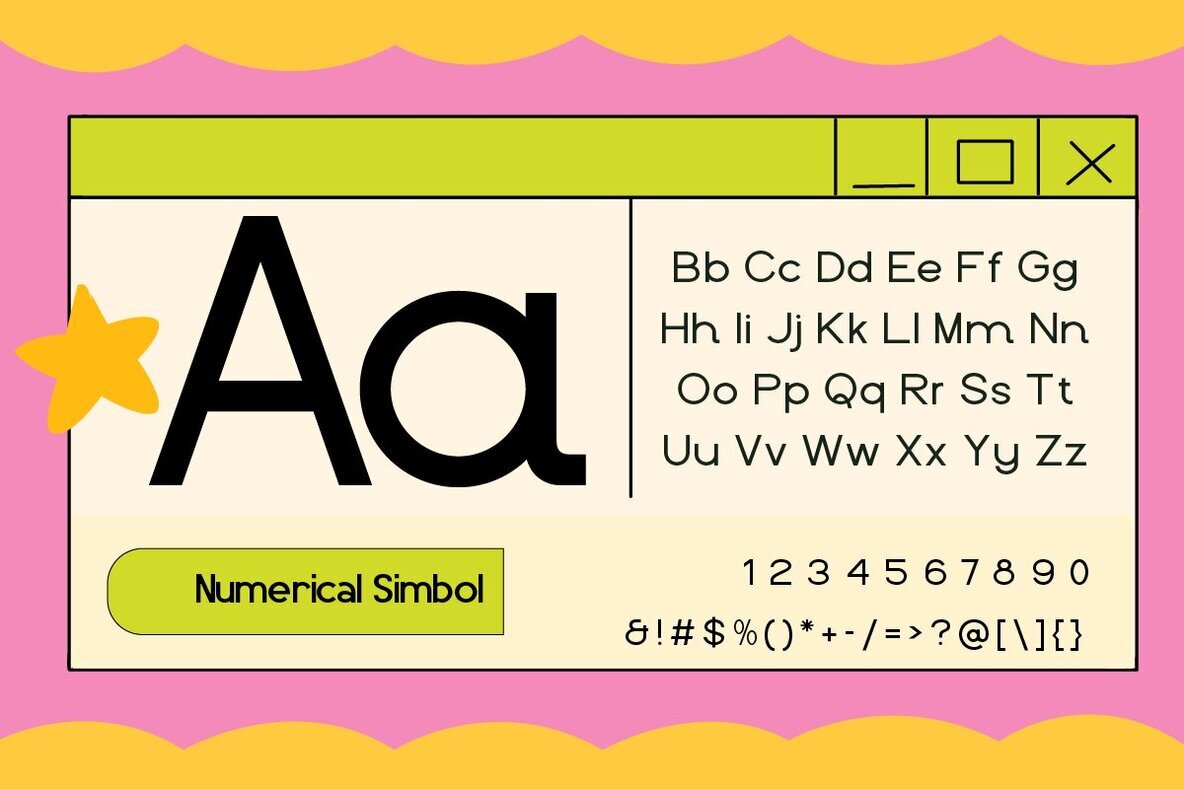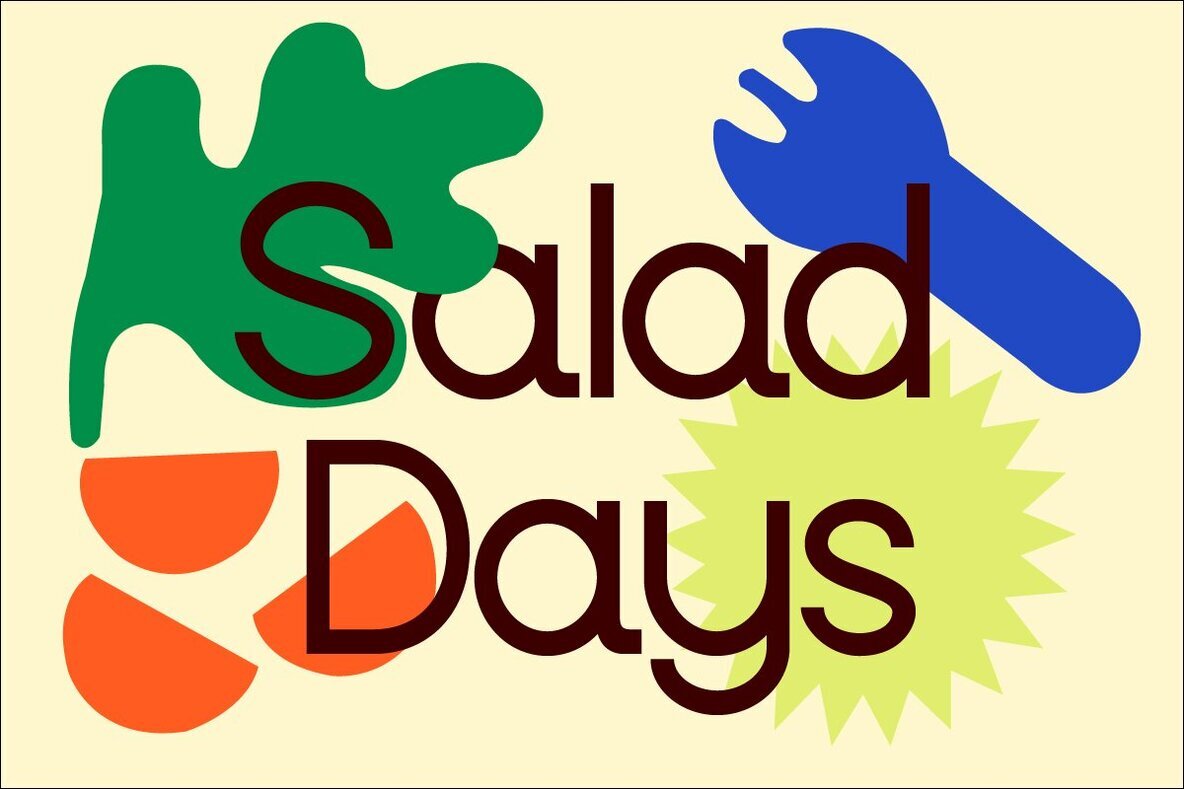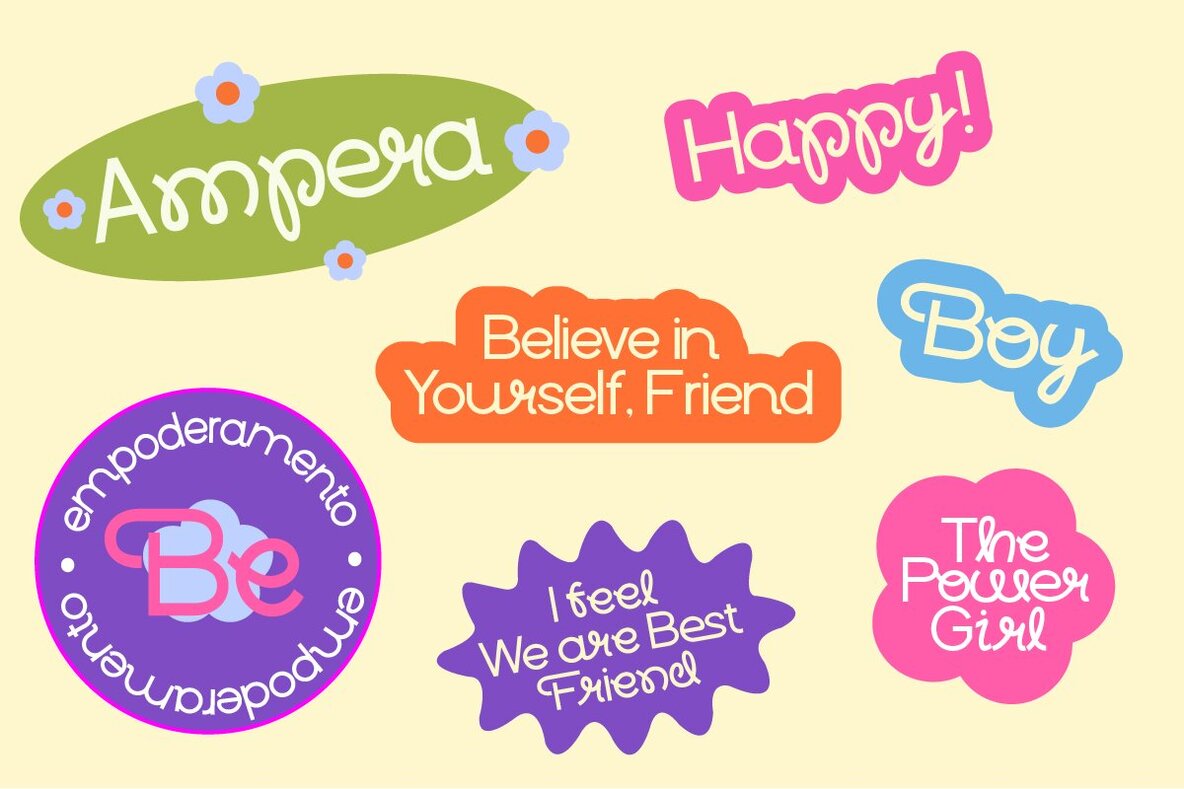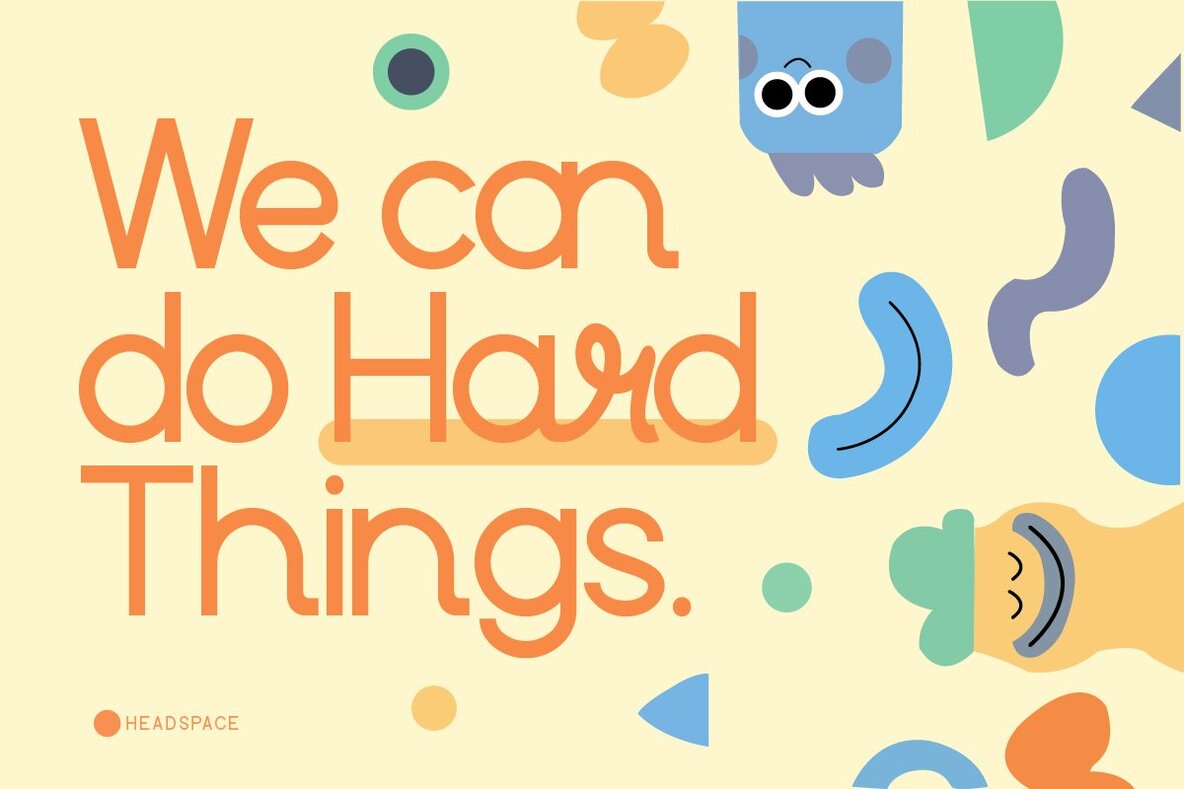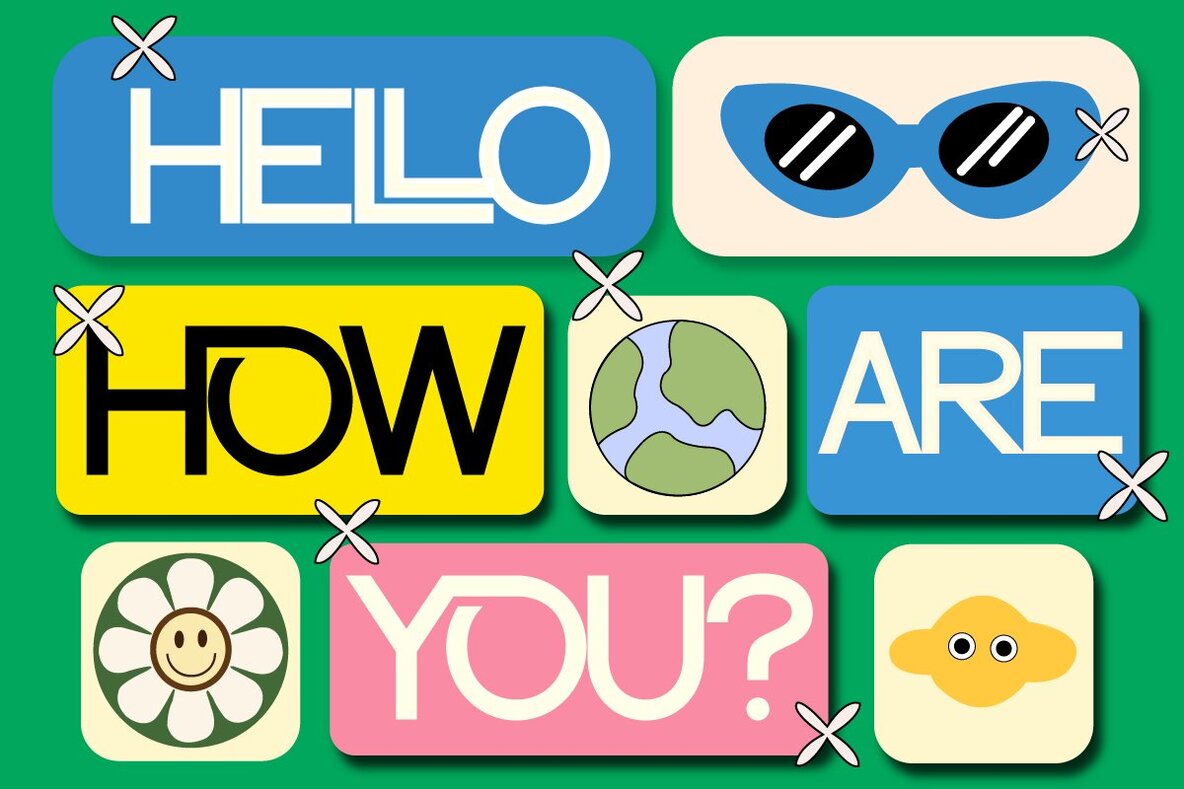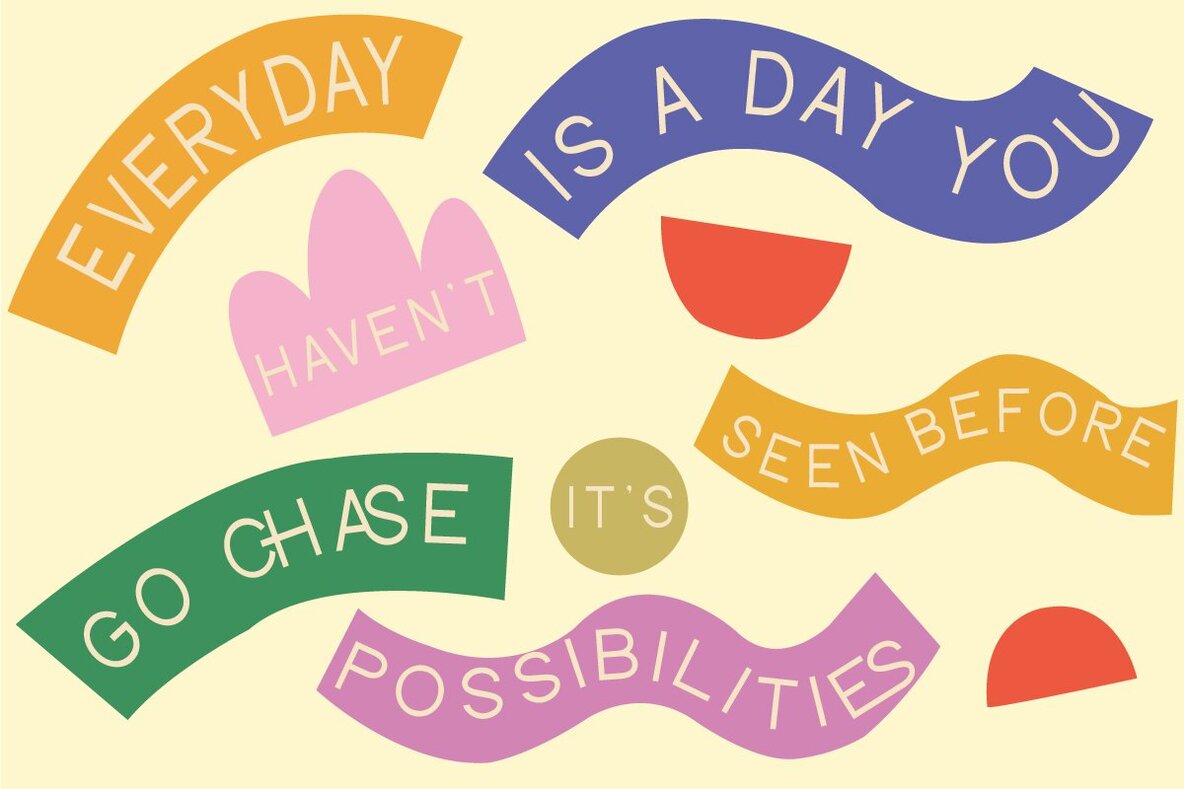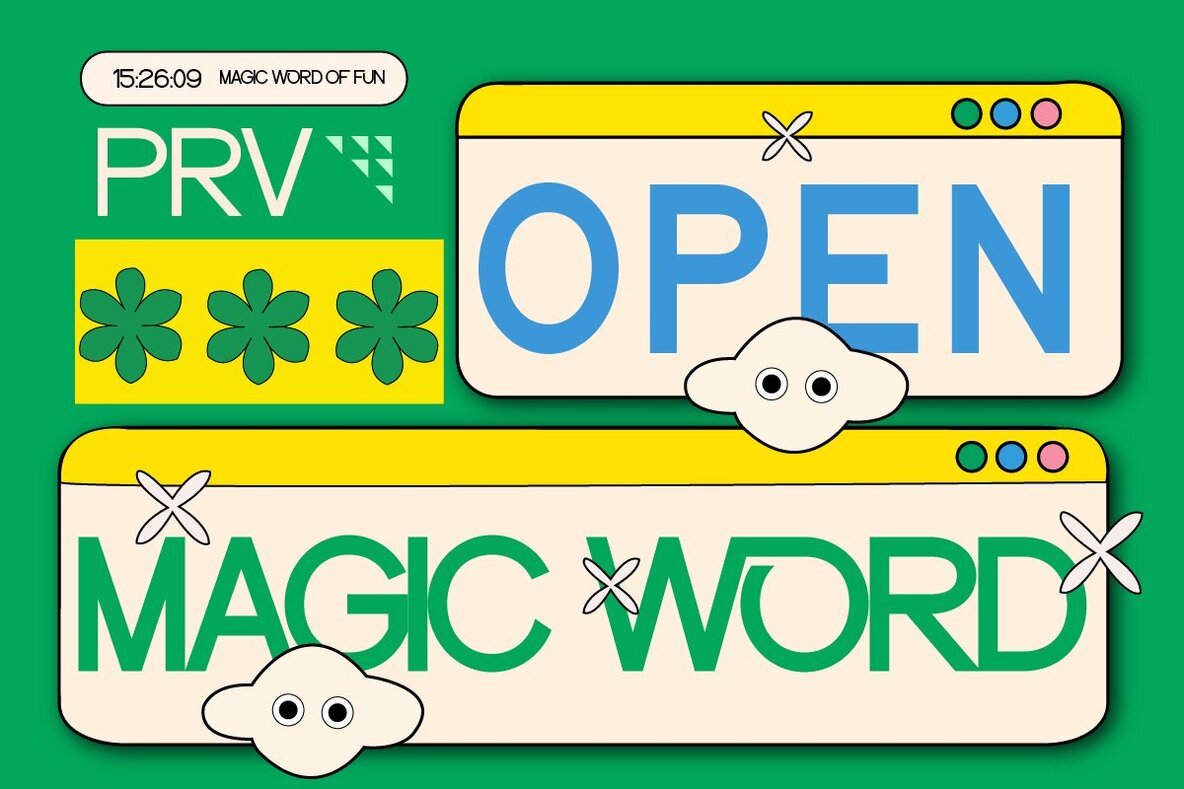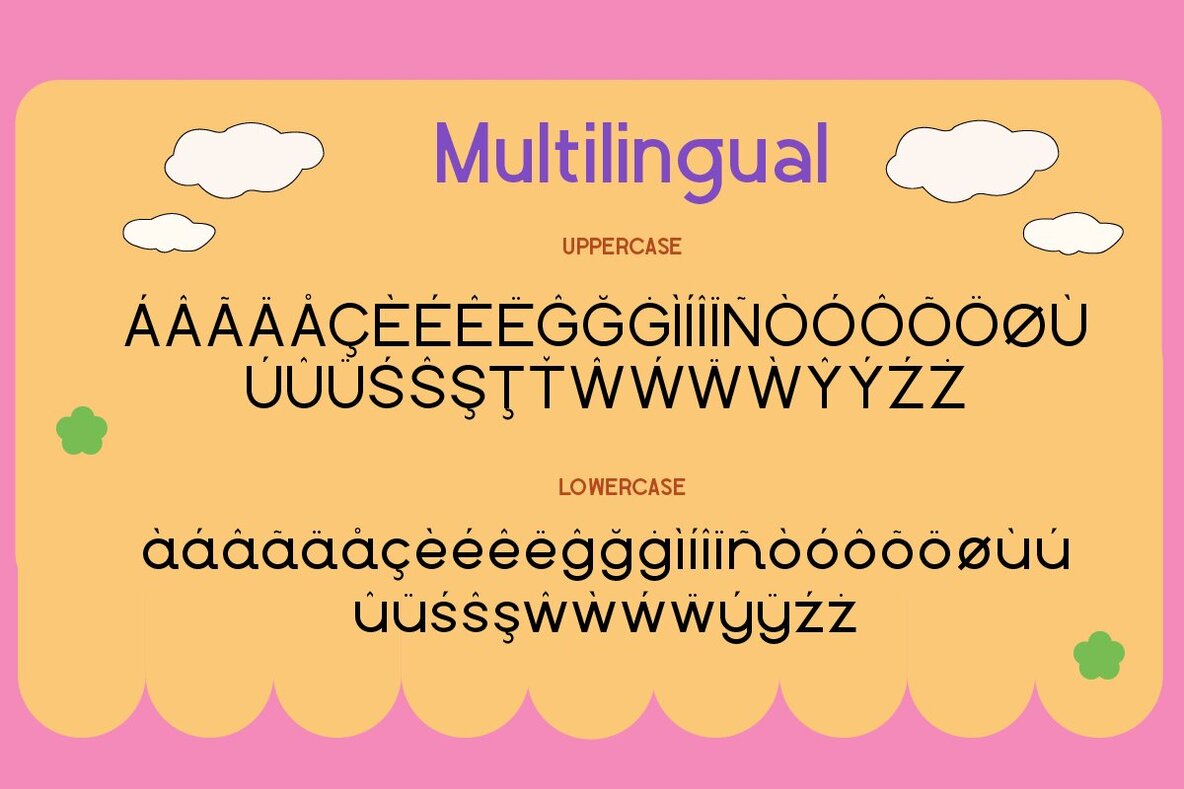
Versilo Font
Versilo
Introducing, Versilo, sans serif font with script as the alternates. This typeface very easy to read. Versilo supported multilingual characters. It looks clean, simple and minimalist. Whether you’re designing a logo, headlines, branding, poster, magazine and any project. Features: